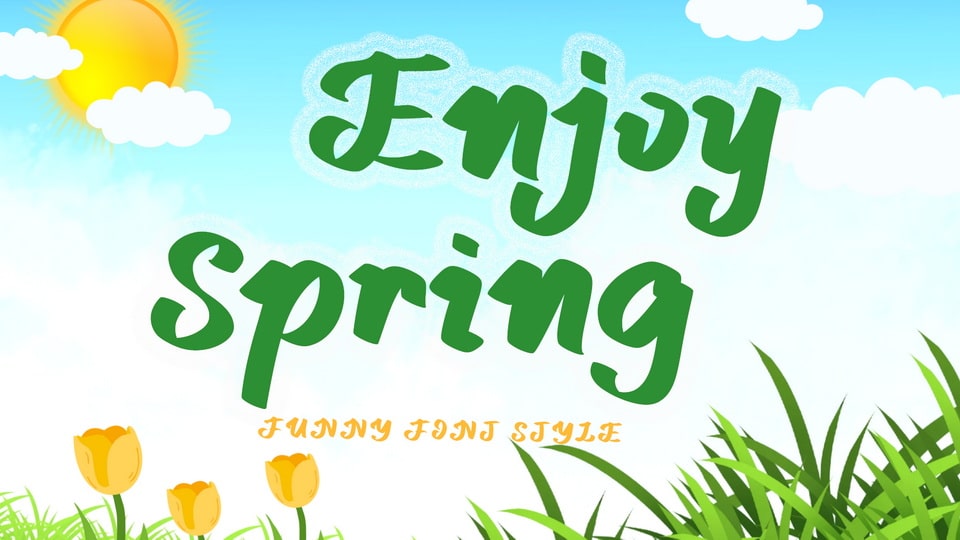
Download Enjoy Spring font, a unique and beautiful hand-drawn typeface. It is very suitable for use in spring, summer, holiday, easter, birthday and so on.